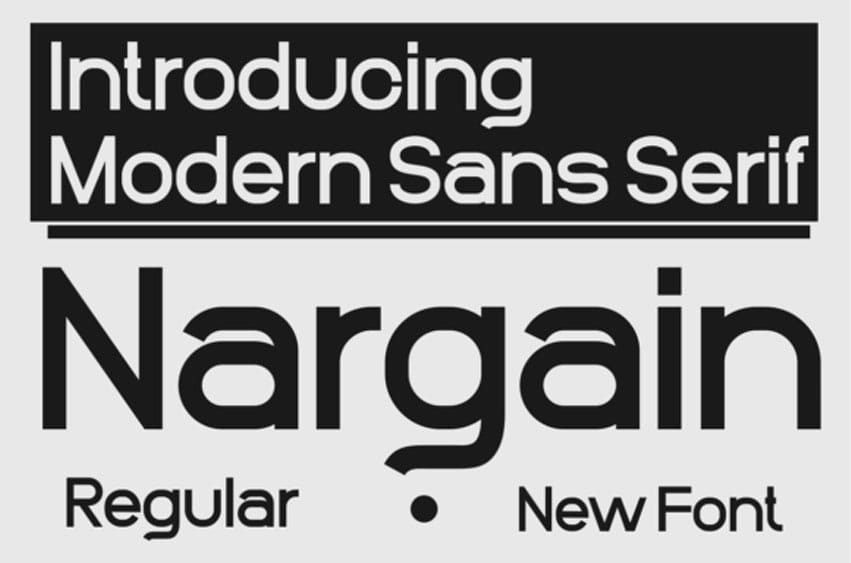
Nargain Font is a modern sans-serif font, embodies cool sophistication with its sleek and dynamic design. Its sharp edges and balanced proportions exude contemporary flair, making it an ideal choice for projects seeking a stylish, urban edge.